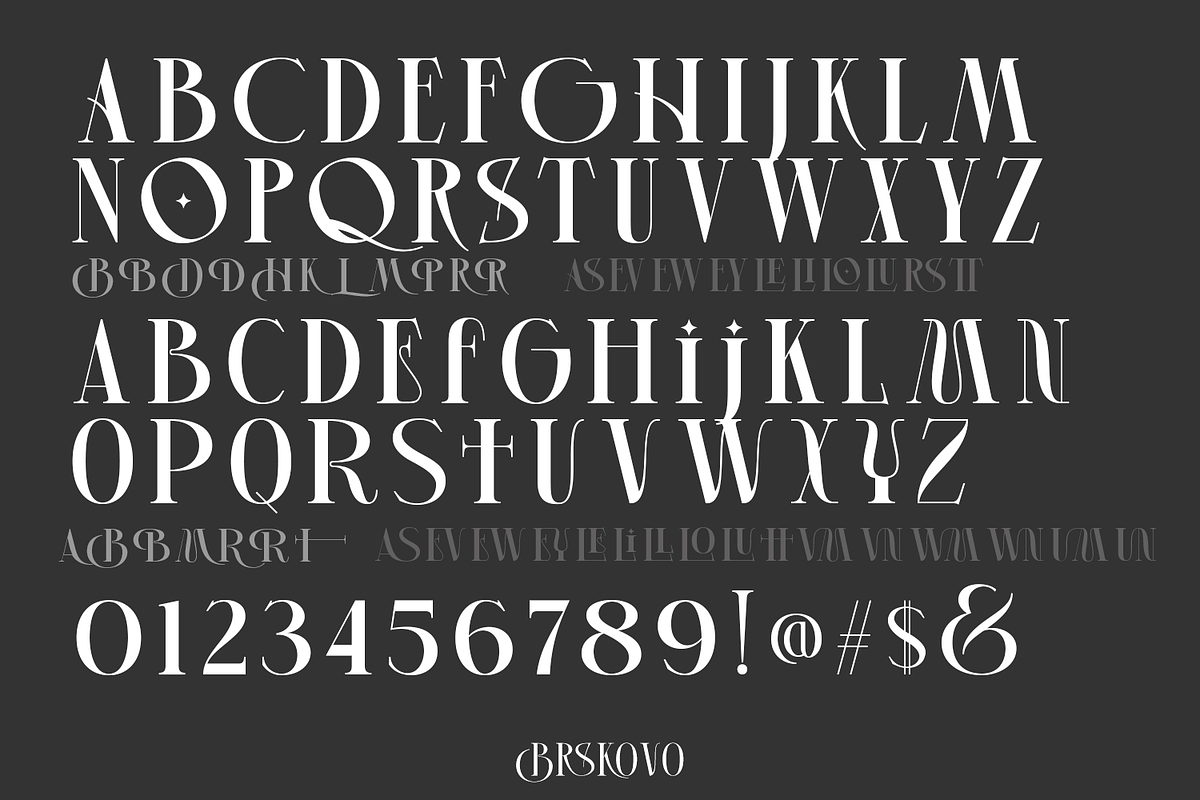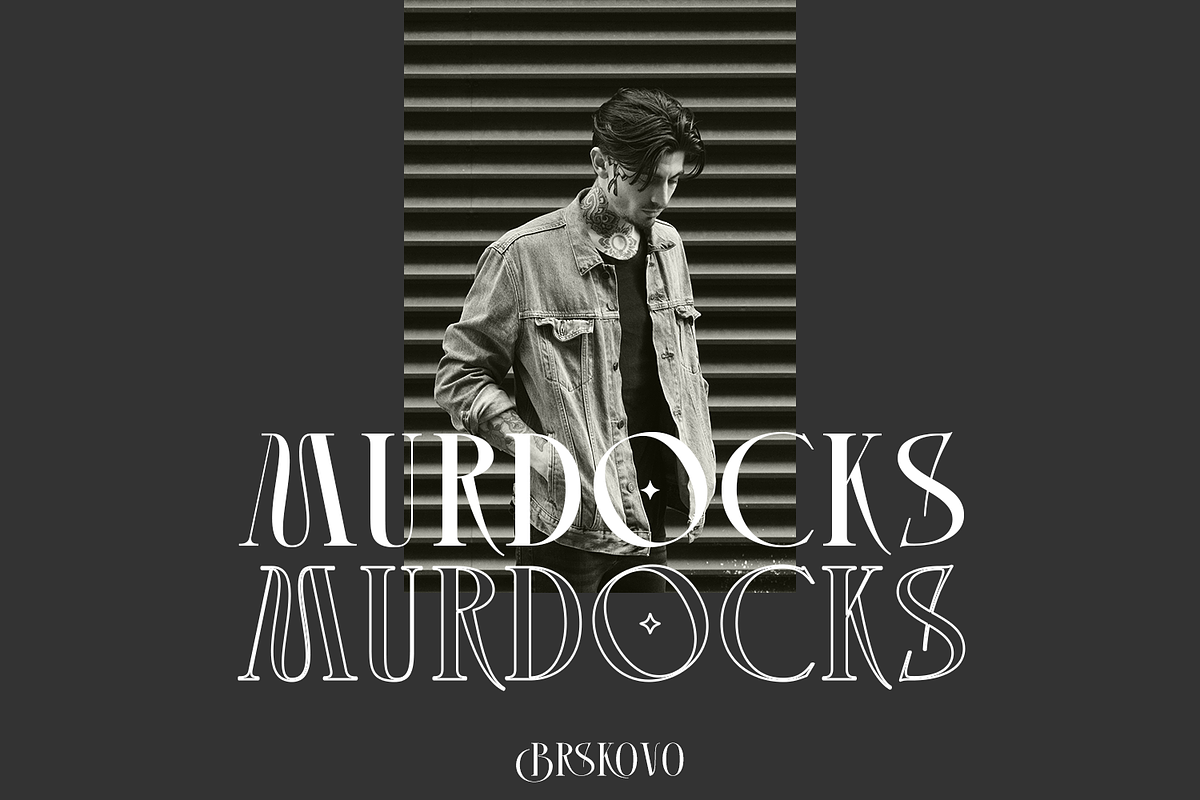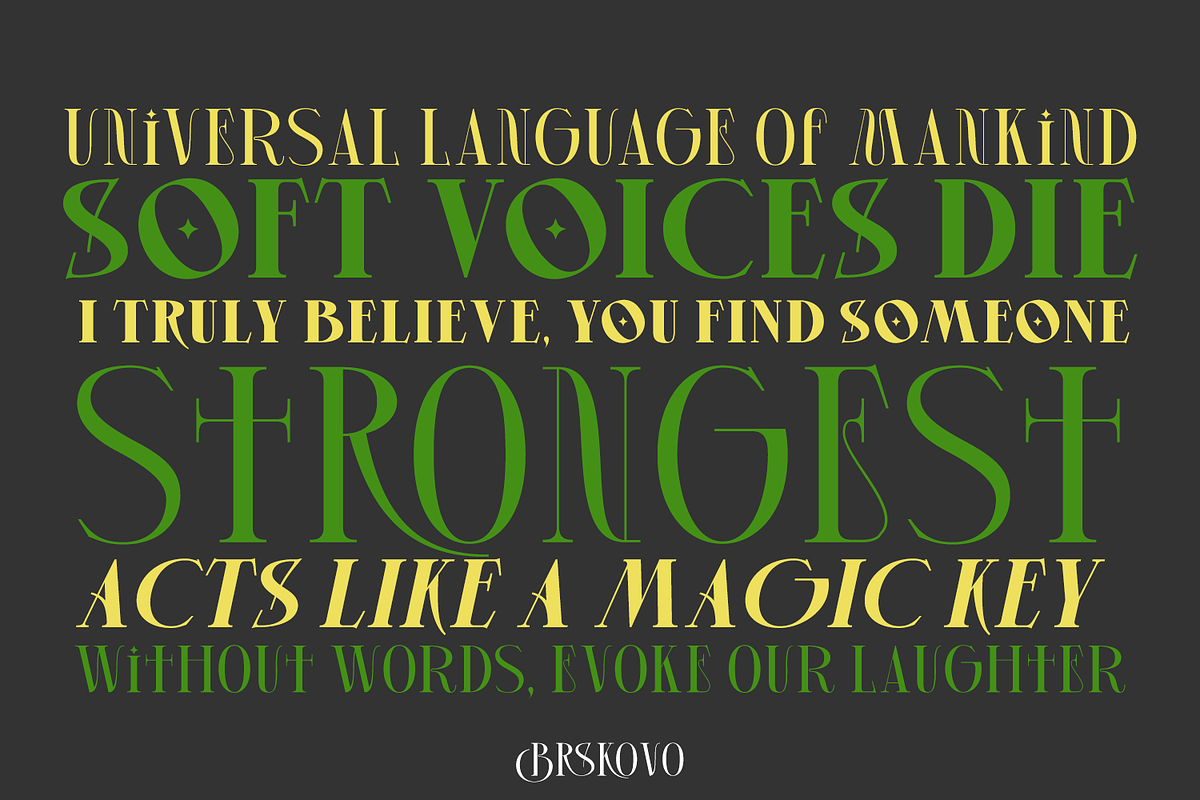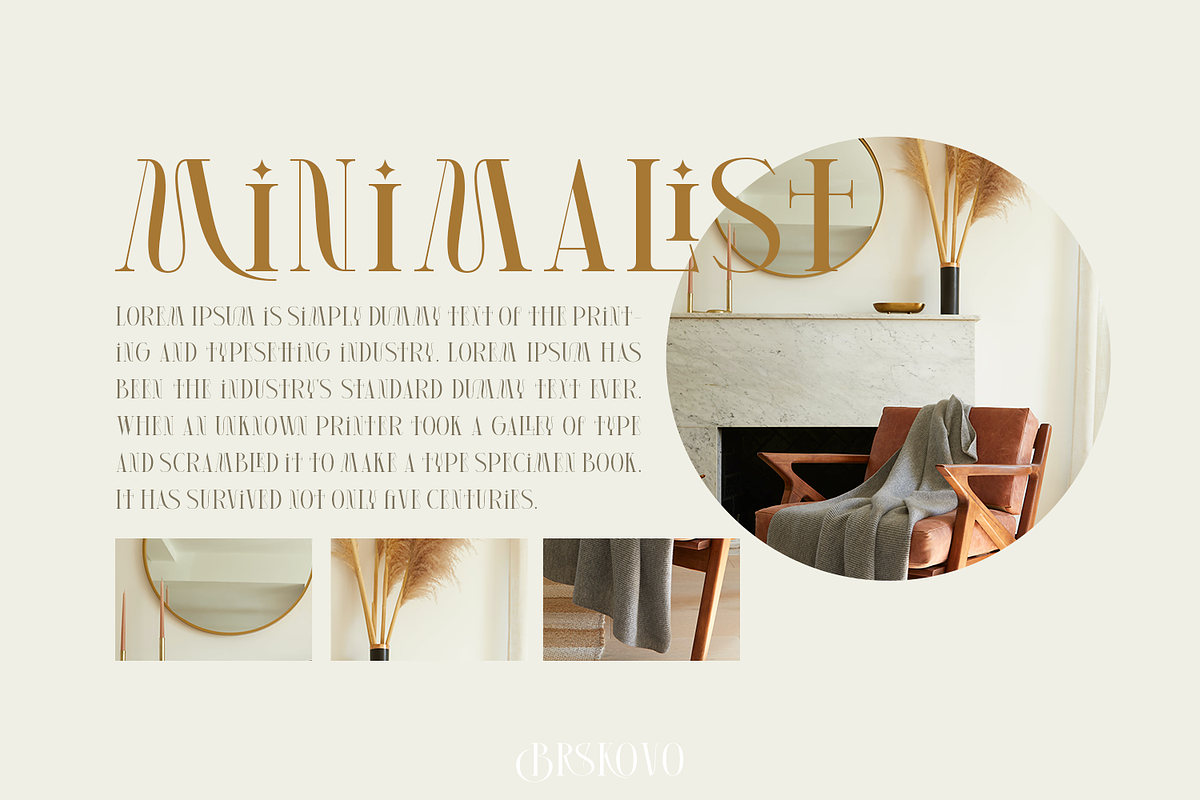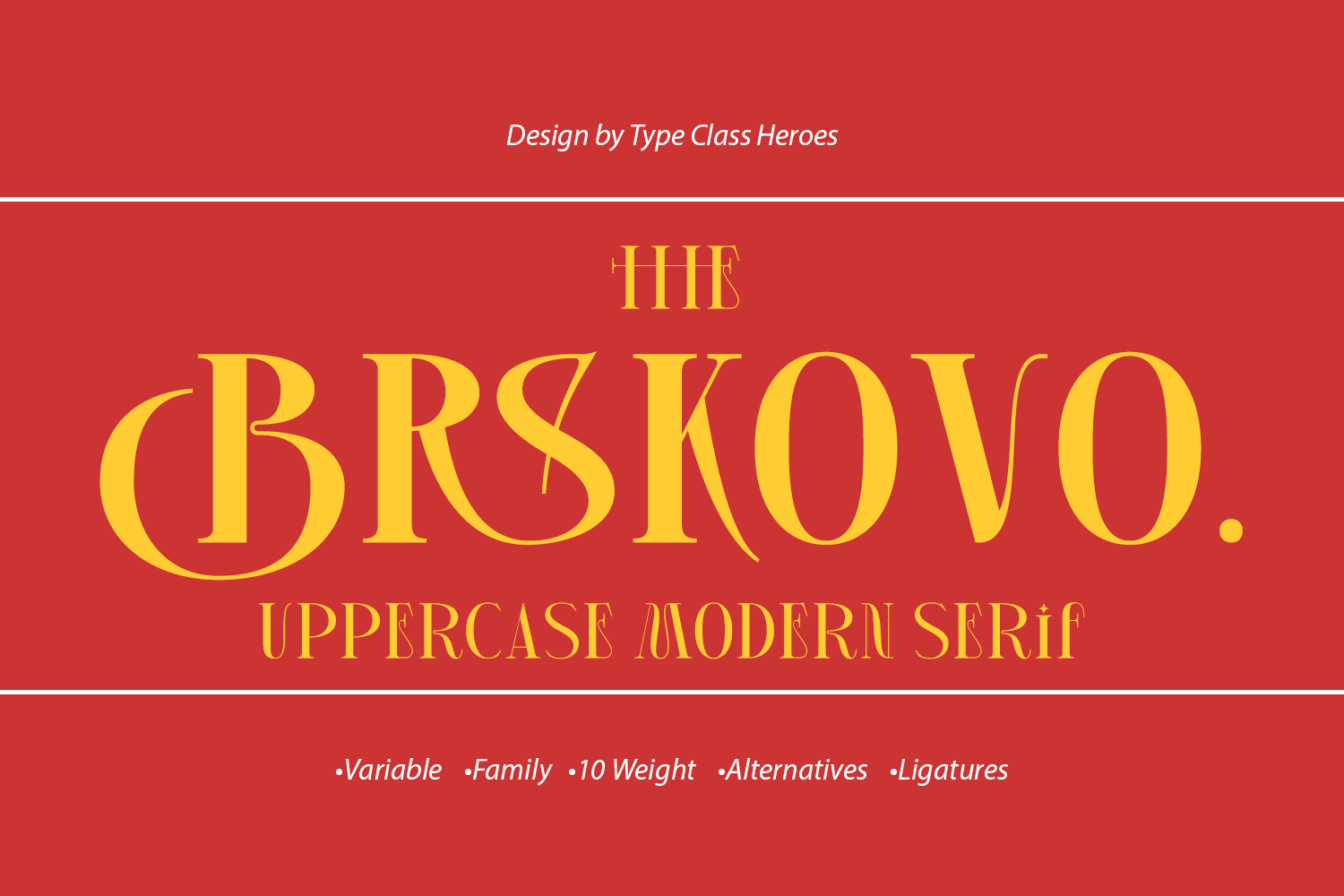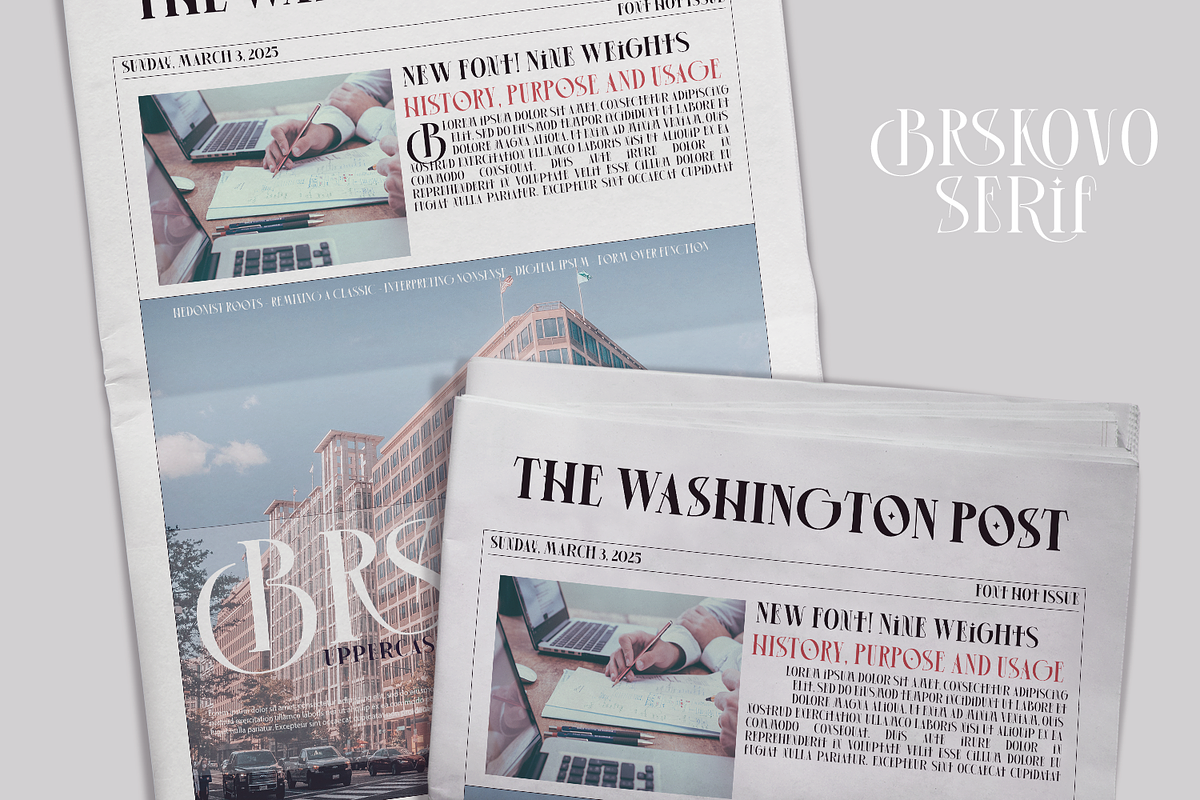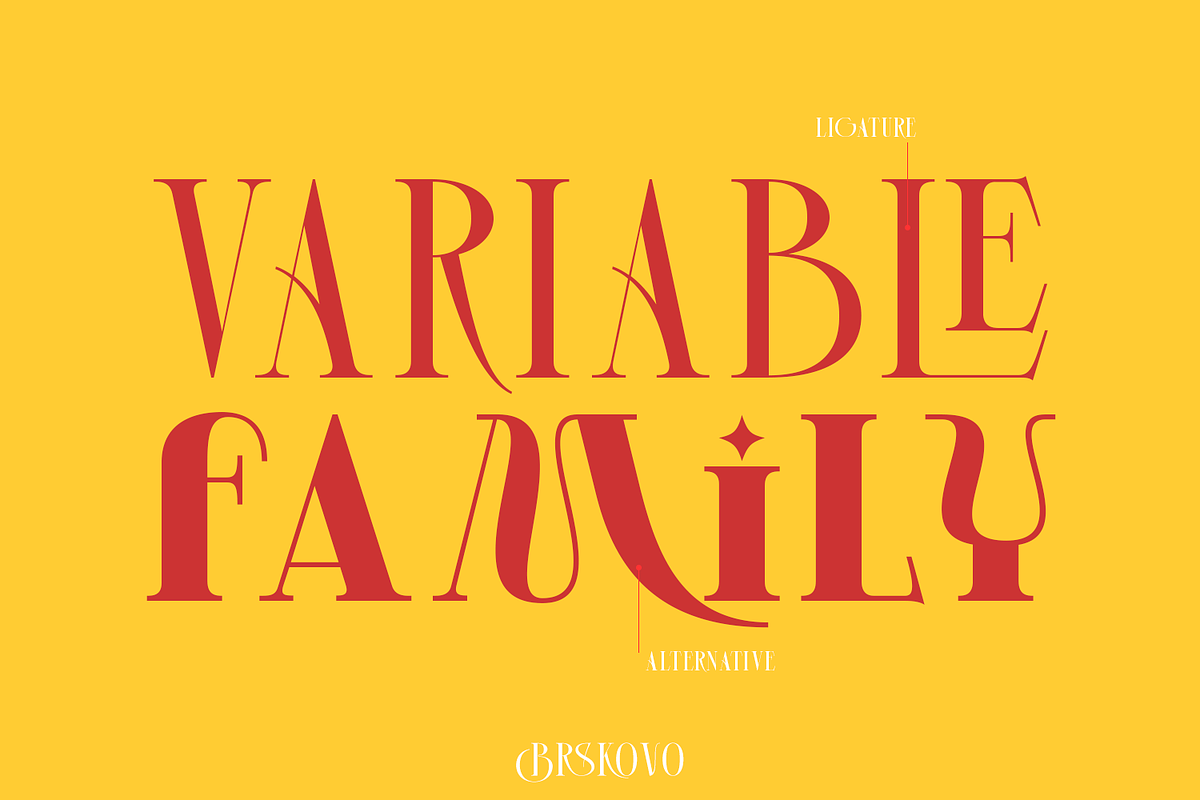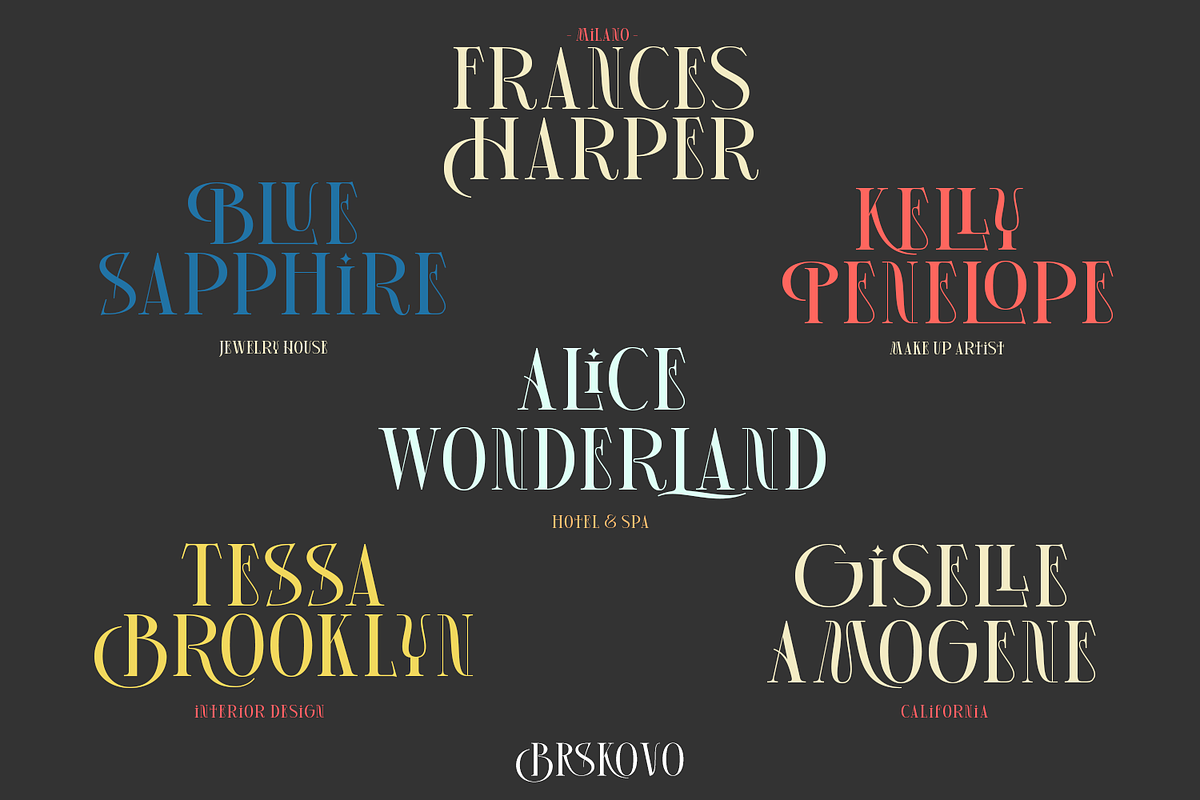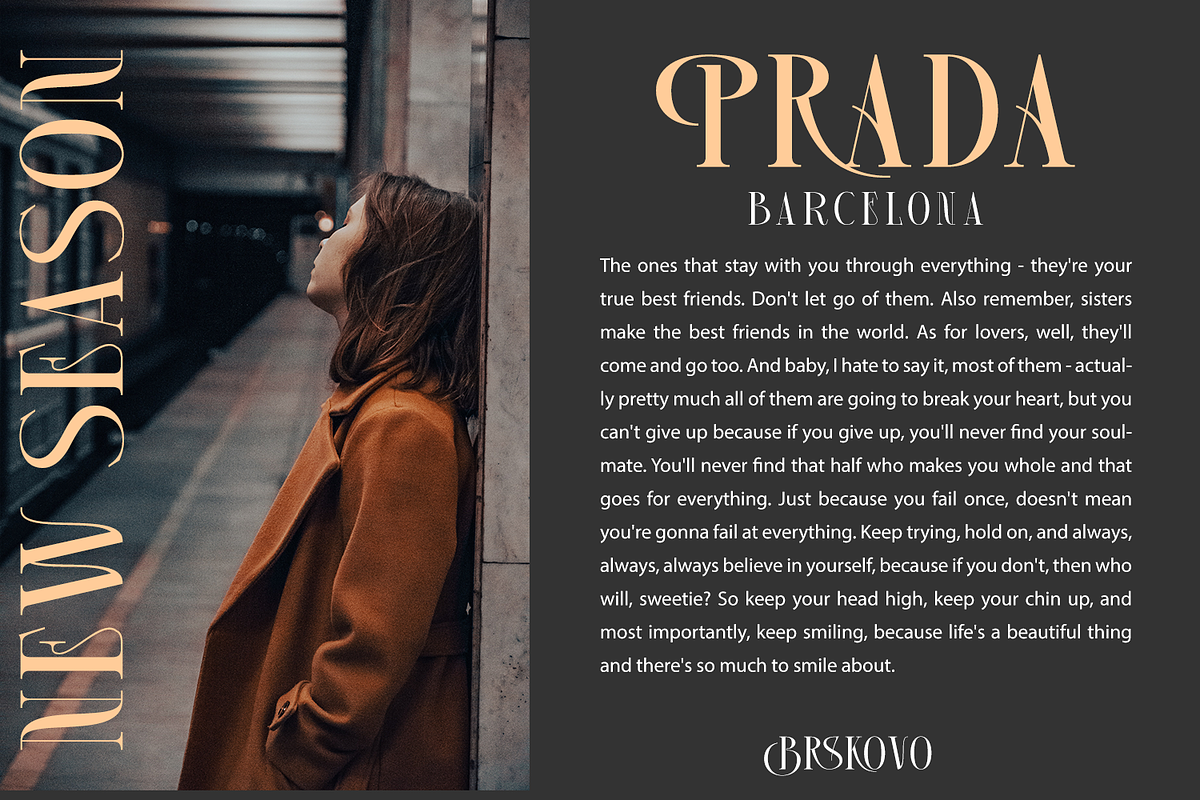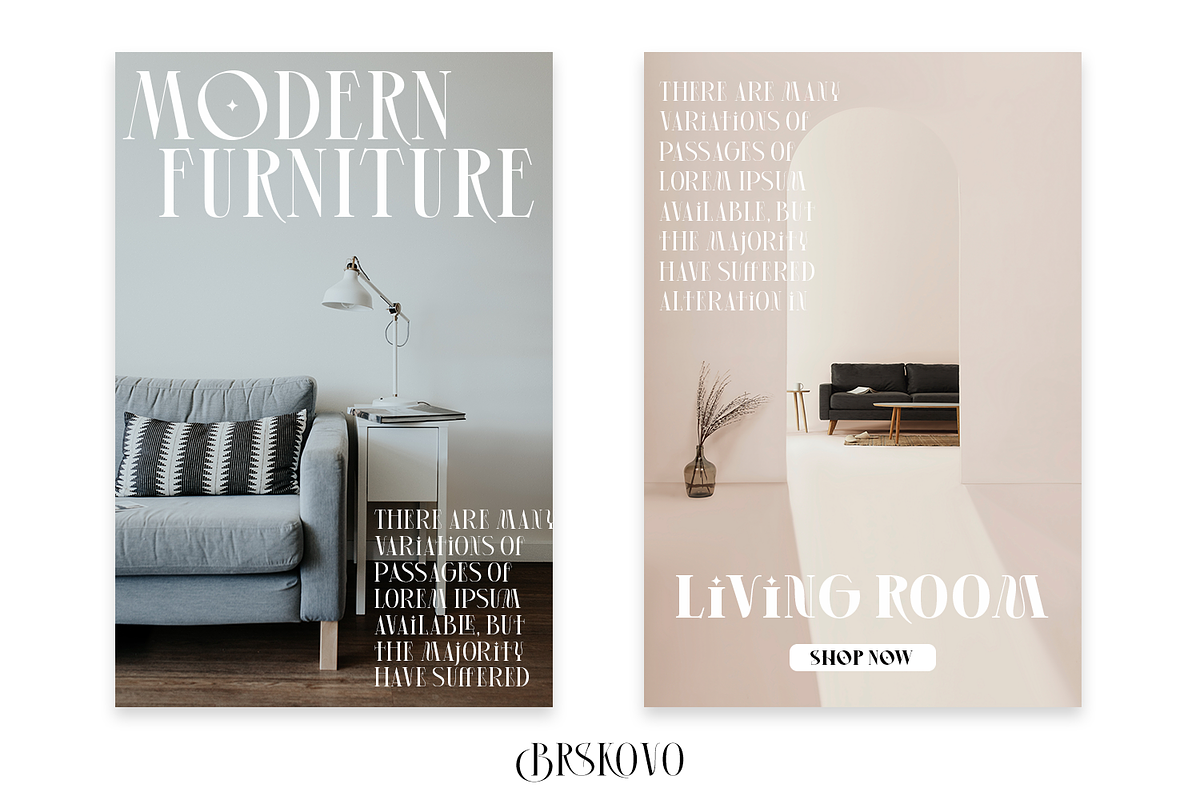
Brskovo Display Font
Introducing Brskovo is a modern uppercase serif, use this font for any branding, product packaging, invitation, quotes, t-shirt, label, poster, logo etc.